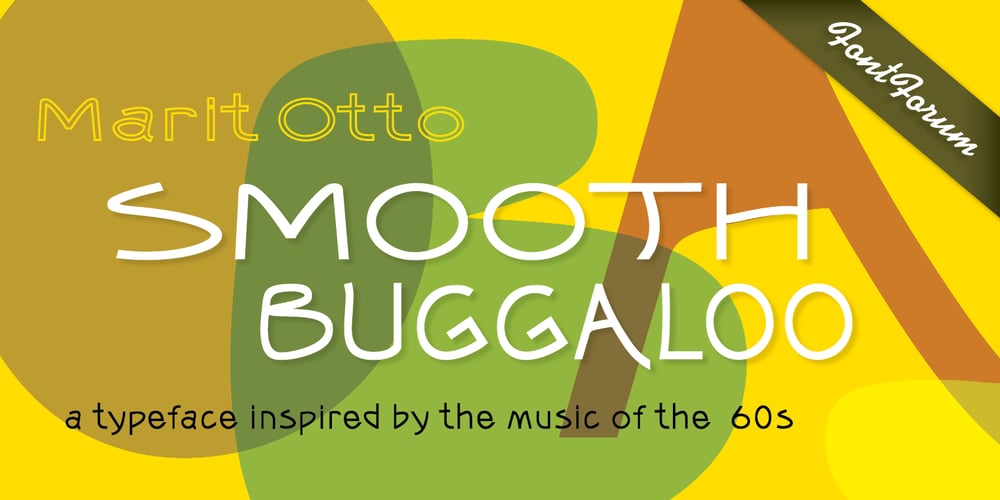
Smooth Buggaloo Font Family was designed by Marit Angenita Otto and published by URW Type Foundry. Smooth Buggaloo contains 5 styles and family package options. Just like my previous typefaces, my new one, Smooth Buggaloo, also finds its roots in music. The Boogaloo was a popular music style in the 60s, a mixture of Latin and Rock and Roll music. Later Salsa took over this genre. Latin music represents a vibrant, lively and an uncontrollable need to move. In Smooth Buggaloo, you will recognize a swing, flair and a hint of seduction. But despite its vibrancy it can also be understood as a serious, simple and clean typeface. The characters vary between a handwritten and a designed look. Smooth Buggaloo is very suitable for any graphic purpose, like logo- and poster design and it can also be used for longer texts.